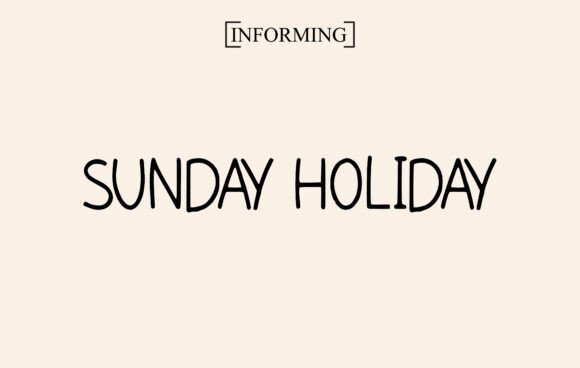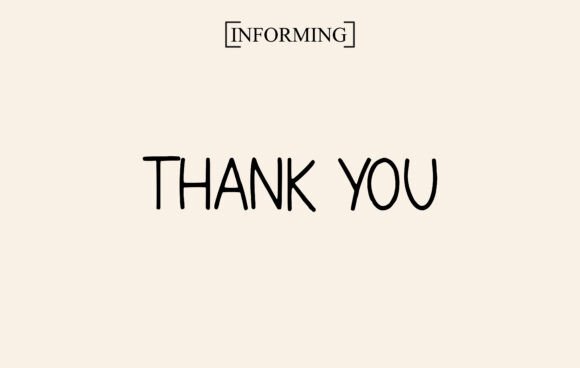
Aura Rose Font: Elevate Your Creative Projects with Elegance and Versatility
In the world of typography, fonts play a crucial role in bringing creative ideas to life. Among the numerous fonts available, Aura Rose Font stands out as a stunning and versatile typeface that can elevate your designs to new heights. Designed to be a true favorite among designers and crafters, Aura Rose Font offers a perfect blend of elegance, legibility, and flexibility, making it an ideal choice for a wide range of creative projects.
What Makes Aura Rose Font Special?
Aura Rose Font is crafted with precision and attention to detail, making it a perfect fit for various design applications. Here are some of its key features:
- Legibility: Aura Rose Font boasts exceptional legibility, making it perfect for use as both title and body text. Its clear and crisp letterforms ensure that your message is conveyed with clarity and precision.
- Versatility: This font is incredibly versatile and can be used for a multitude of design projects, including magazine headlines, t-shirts, social media graphics, branding, wedding invitations, cards, and more.
- Elegance: Aura Rose Font exudes elegance and sophistication, making it perfect for designs that require a touch of luxury and refinement.
Aura Rose Font is a dream come true for designers and crafters looking to add a touch of elegance and sophistication to their creative projects. Whether you’re working on a branding campaign, designing a wedding invitation, or creating social media graphics, this font is sure to impress.
Here are some of the many ways you can use Aura Rose Font:
- Magazine Headlines: Create stunning magazine headlines that grab attention and draw readers in.
- T-Shirts and Apparel: Design eye-catching t-shirts, hoodies, and other apparel that showcases your brand’s personality.
- Social Media Graphics: Elevate your social media presence with elegant and engaging graphics that feature Aura Rose Font.
- Wedding Invitations: Create beautiful and elegant wedding invitations that set the tone for a special day.
- Branding: Use Aura Rose Font to create a cohesive brand identity that exudes luxury and sophistication.
Why Choose Aura Rose Font?
With so many fonts available, why choose Aura Rose Font? Here are just a few reasons:
- Unique and Exclusive: Aura Rose Font is a unique and exclusive typeface that will set your designs apart from the rest.
- High-Quality: This font is crafted with precision and attention to detail, ensuring a high-quality finish that will impress.
In conclusion, Aura Rose Font is an exceptional typeface that offers a perfect blend of elegance, legibility, and versatility. Whether you’re a designer, crafter, or DIY enthusiast, this font is sure to become a favorite in your creative arsenal. With its wide range of applications and high-quality finish, Aura Rose Font is the perfect choice for anyone looking to elevate their creative projects to new heights.